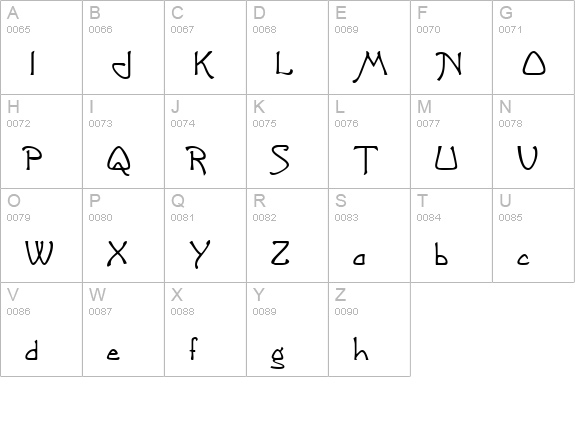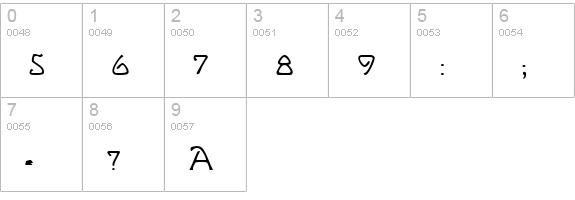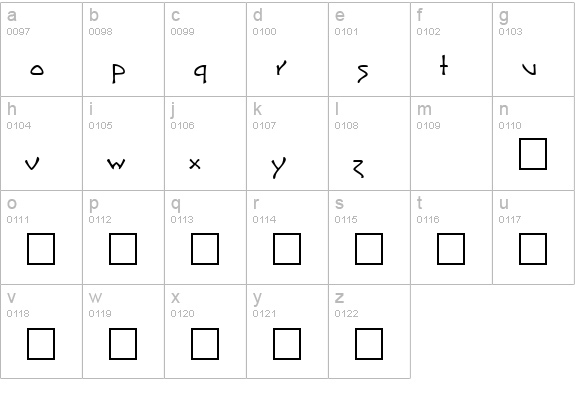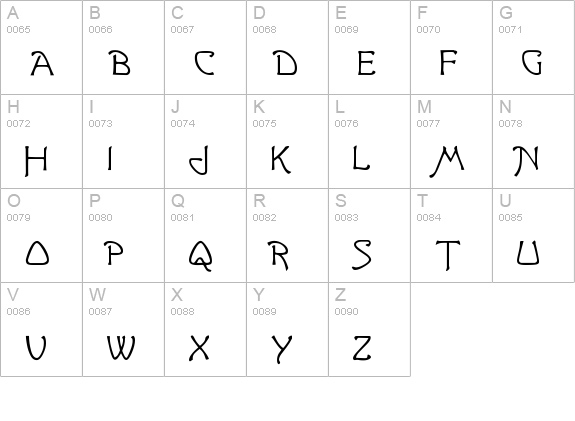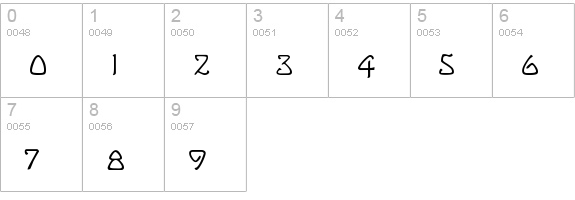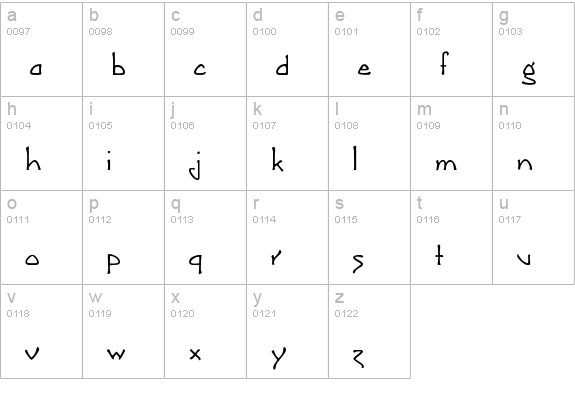
Greeting Font Details
Introducing Greeting font - a stylish and elegant typeface that is perfect for all your design needs. With its graceful curves and sophisticated aesthetic, Greeting font is sure to make a statement in any project. This versatile font is ideal for invitations, greeting cards, logos, and more. The best part is that Greeting font is completely free to download at FontsMarket.com. Whether you're a designer looking to add a touch of class to your work or someone in need of a beautiful font for personal projects, Greeting font has got you covered. Don't miss out on this amazing opportunity to enhance your designs with this stunning typeface. Download Greeting font today and let your creativity shine!